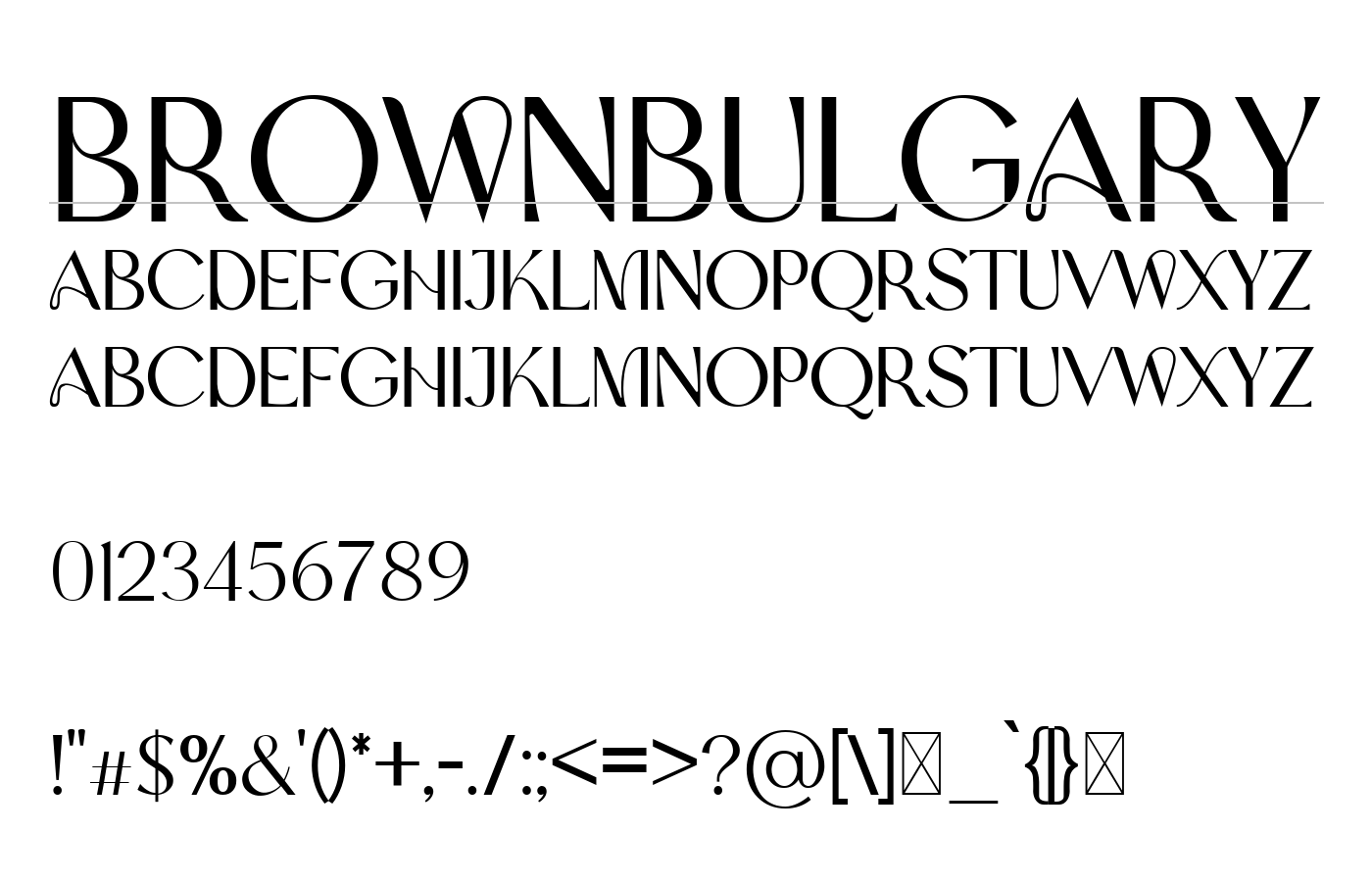
BrownBulgary is an elegant serif font featuring high contrast between thick and thin strokes, with delicate, refined letterforms that give it a sophisticated and artistic feel. Its slender proportions and unique, stylish details make it ideal for luxury branding, editorial headlines, and fashion-related projects where a modern yet graceful look is desired. This font works best in display settings where its distinctive character can shine, adding a touch of class and refinement.
BrownBulgary Font
About BrownBulgary Font